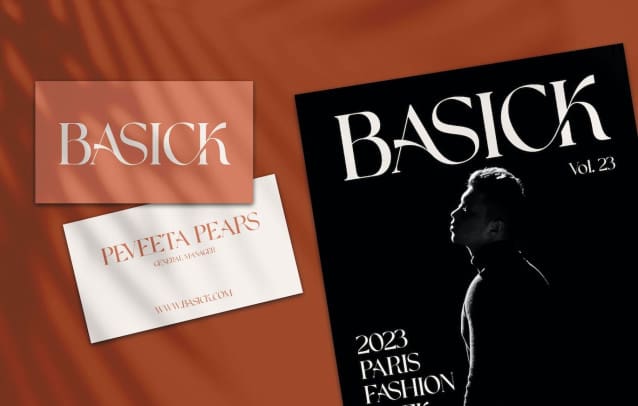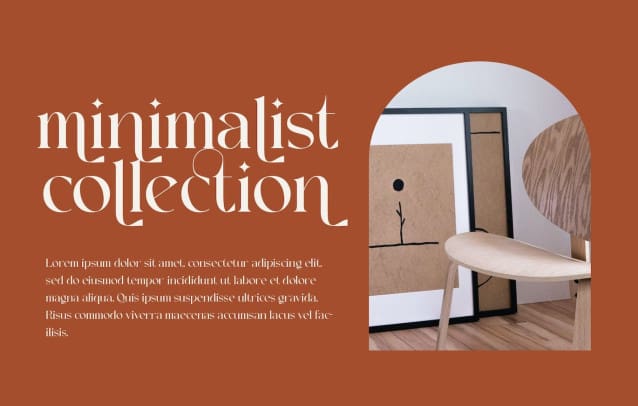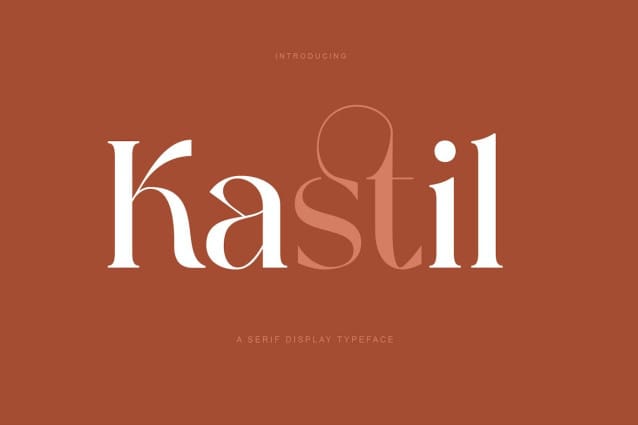
Kastil Font
Kastil Font, is an elegant modern vintage font with a slanted version. It’s a very versatile font that works great in both large and small sizes. Perfect for branding projects, logo design, product packaging, magazine headers or simply as a stylish text overlay on any background image